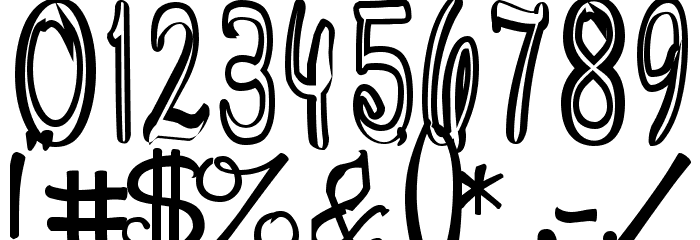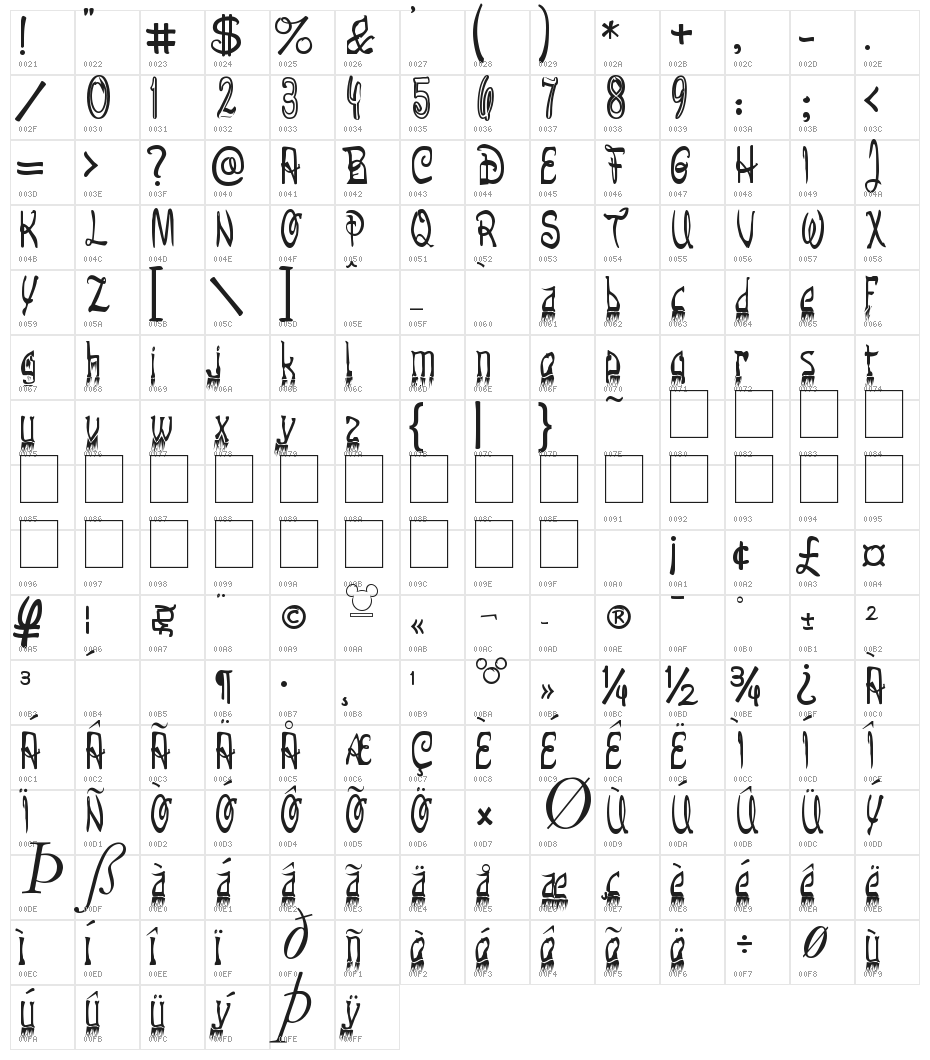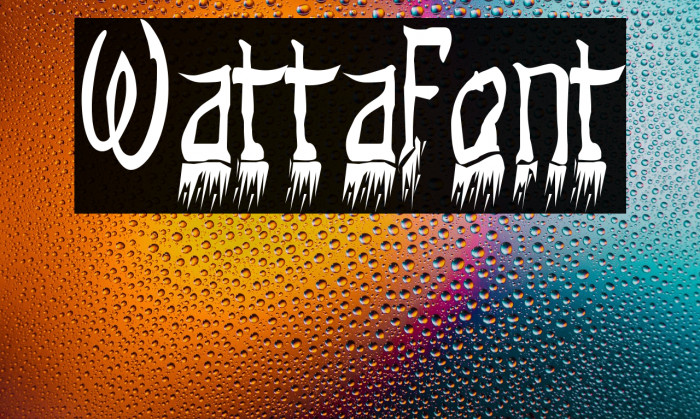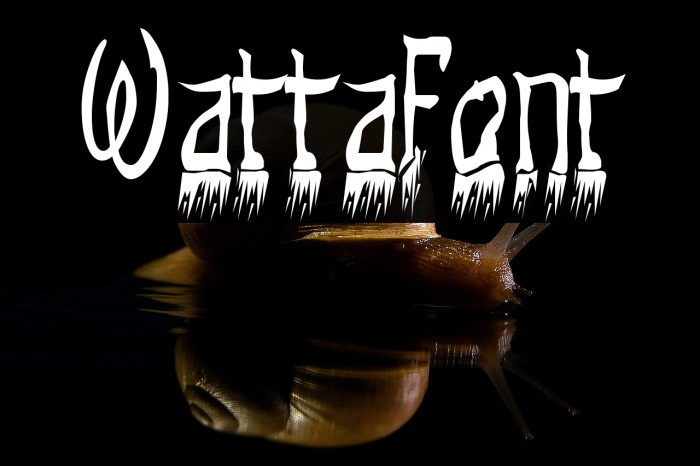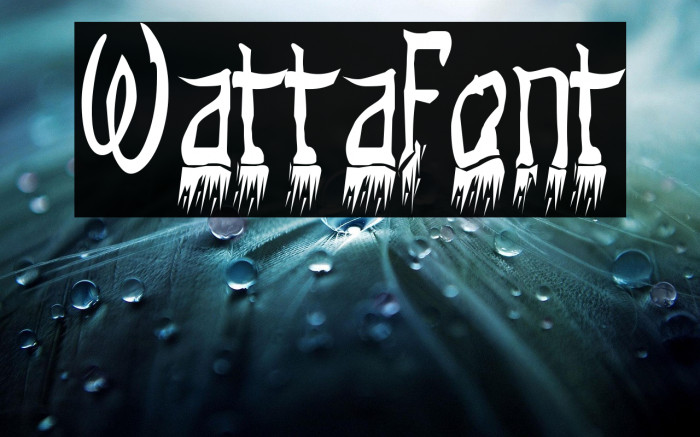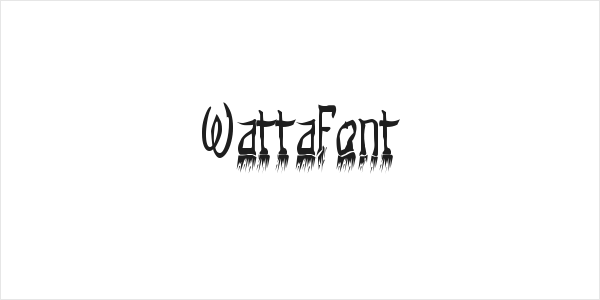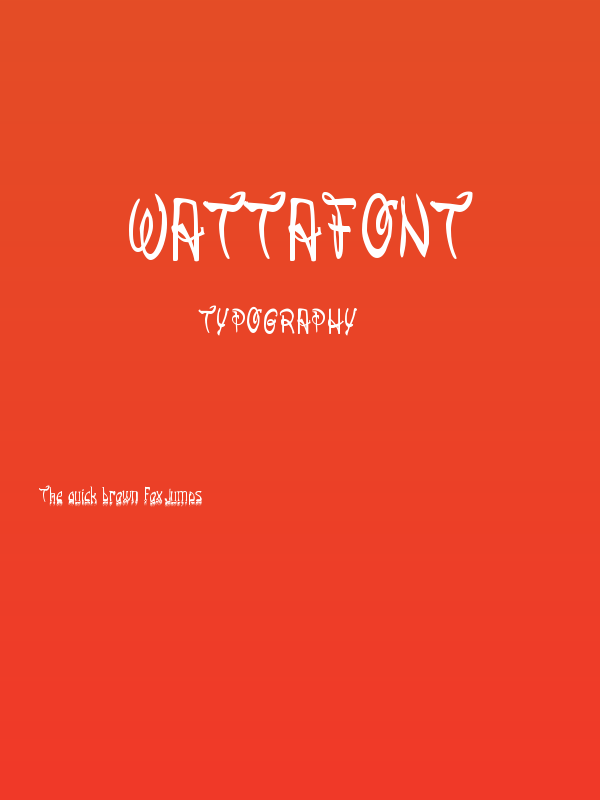
Wattafont Font
Wattafont Description
This font features a highly decorative and artistic style, characterized by its irregular, hand-drawn appearance. The uppercase letters exhibit a playful, whimsical design with varying stroke thicknesses and unique embellishments. The lowercase letters continue this theme, with some characters displaying a dripping effect that adds a dynamic and edgy feel. The numerals are equally distinctive, maintaining the font's overall quirky aesthetic. Special characters are creatively integrated, enhancing the font's versatility for artistic projects. This font's unique style makes it suitable for eye-catching designs.